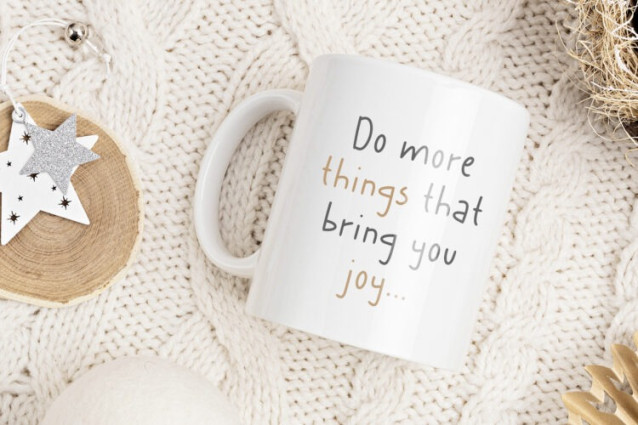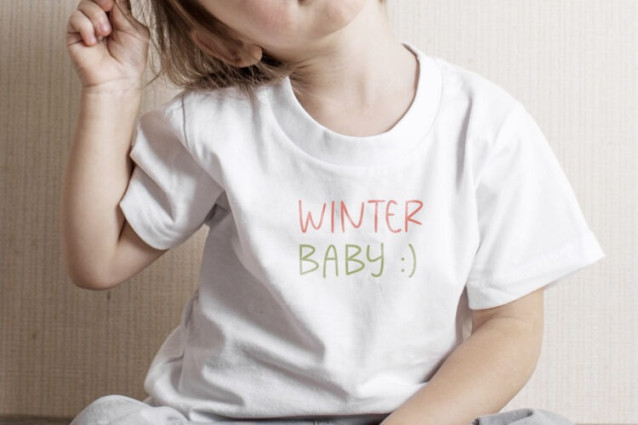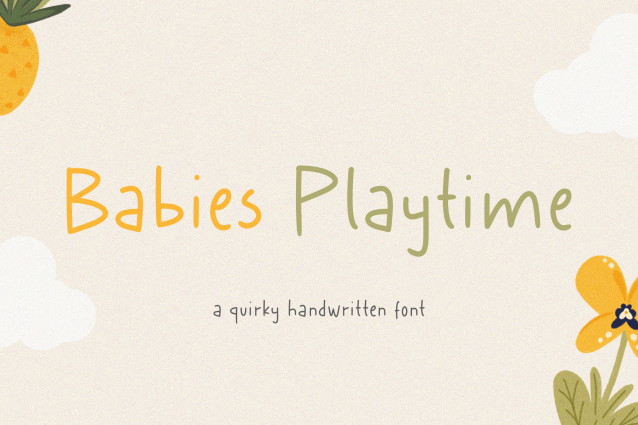
Babies Playtime Font
Babies Playtime Font is a Quirky Handwritten Font that is modern and fresh, and will bring a warm and inviting feel to your business. Take advantage of the fonts and experience the magic for yourself.
Babies Playtime font is perfect for product packaging, branding project, megazine, social media, wedding, or just used to express words above the background.